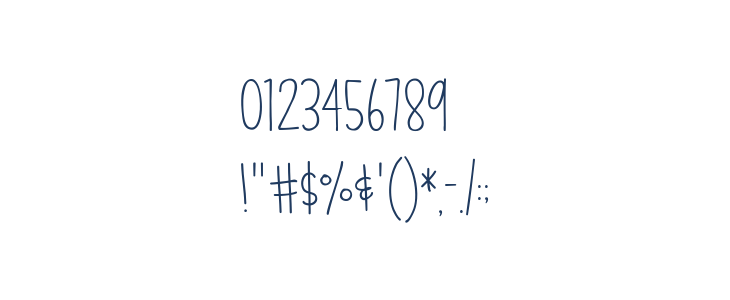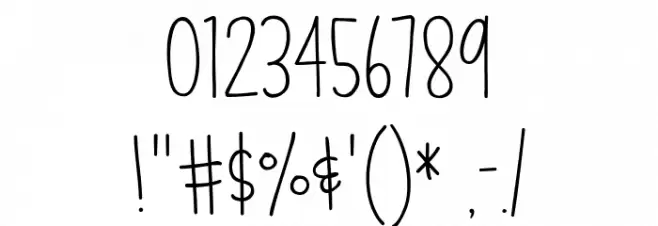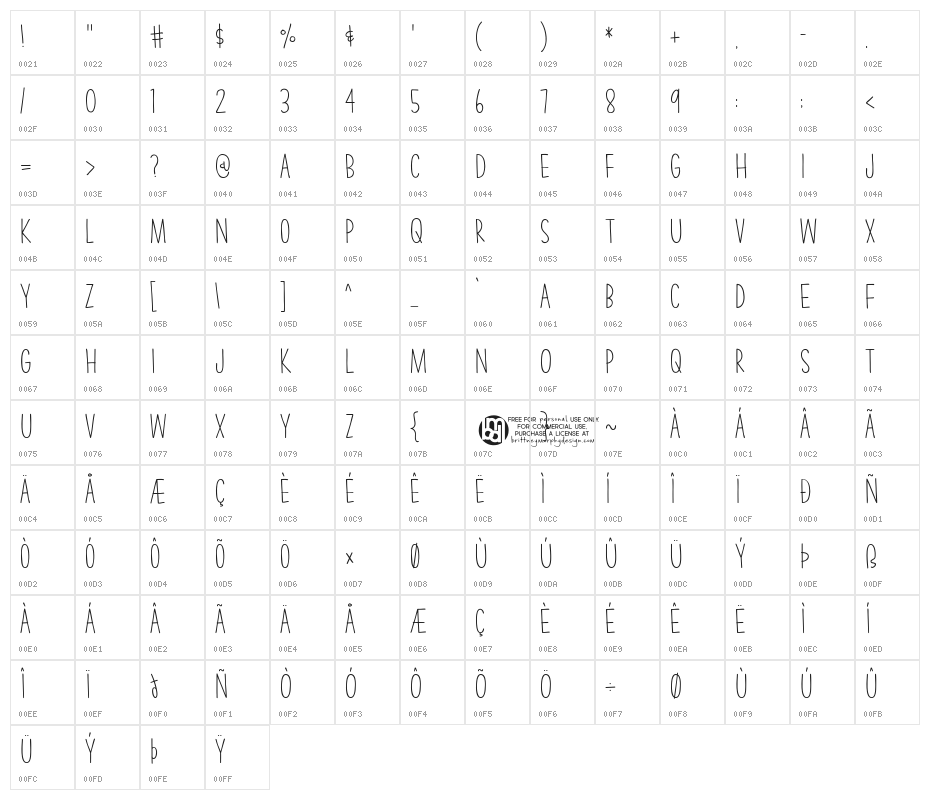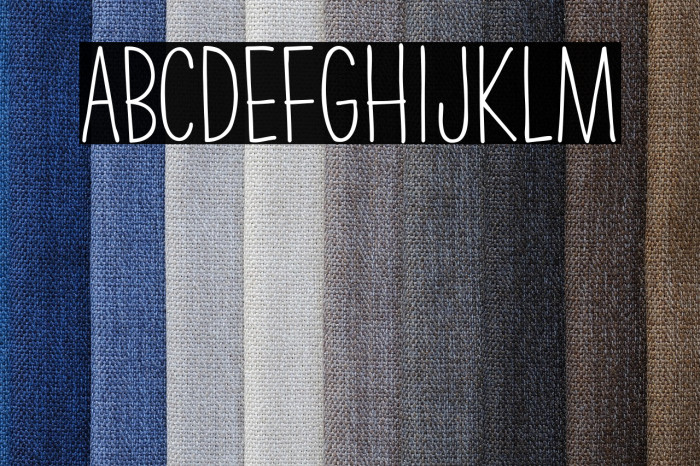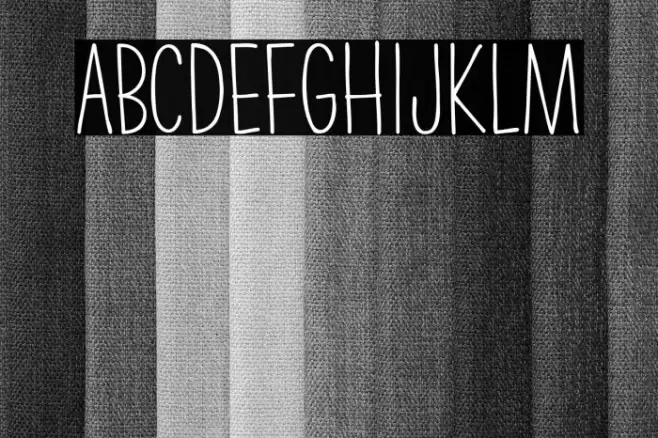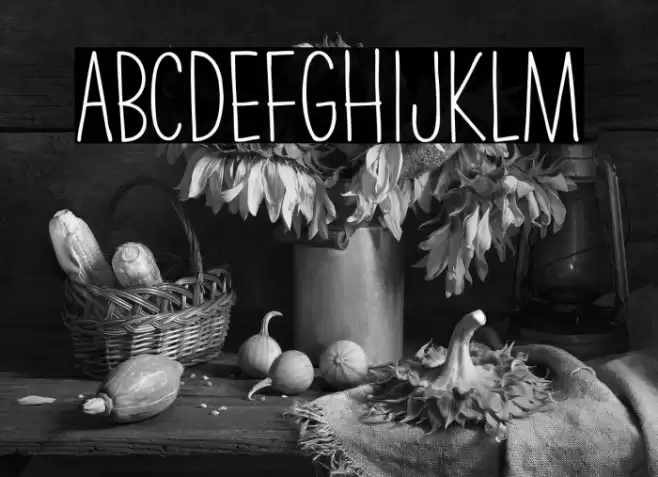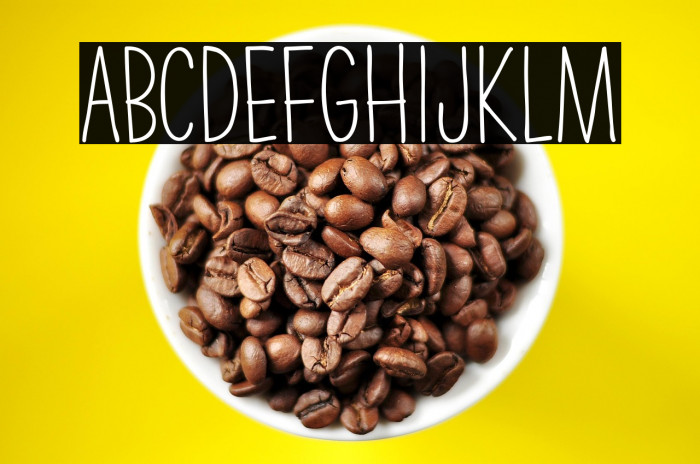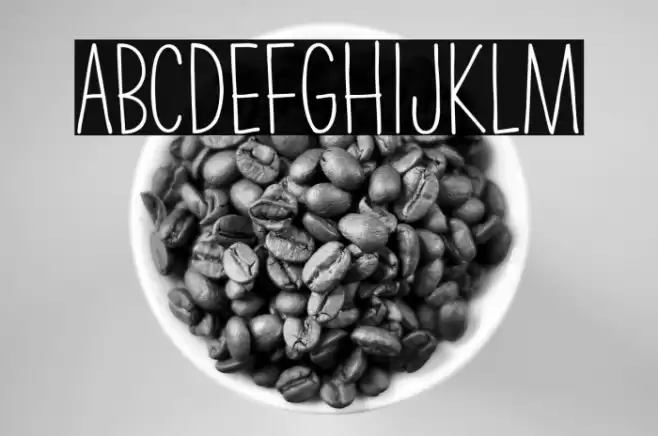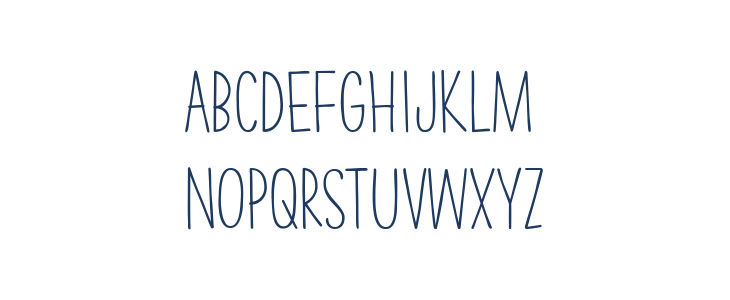
Little Miracles Font
Little Miracles Description
This font features a playful and whimsical handwritten style, characterized by its tall, narrow letters and slightly irregular strokes. The uppercase and lowercase letters maintain a consistent height, giving it a uniform appearance. The numerals are clear and easy to read, while the special characters blend seamlessly with the overall design. The font's informal and friendly look makes it suitable for projects that require a personal touch, such as greeting cards, children's books, or casual branding. Its simplicity and charm make it versatile for various creative applications.
Overall StyleWhimsical
Use CaseHeadlines, Informal text, Creative projects
Proposed ProjectsIdeal for greeting cards, children's books, casual branding, and creative projects.